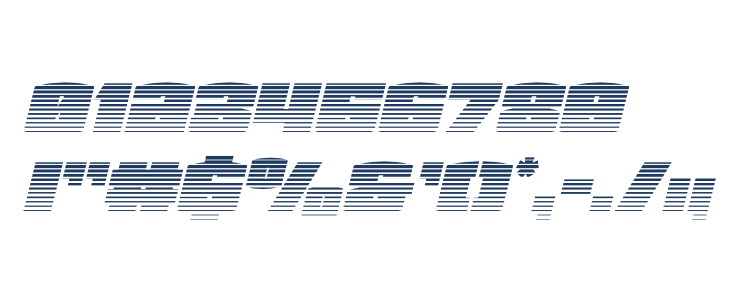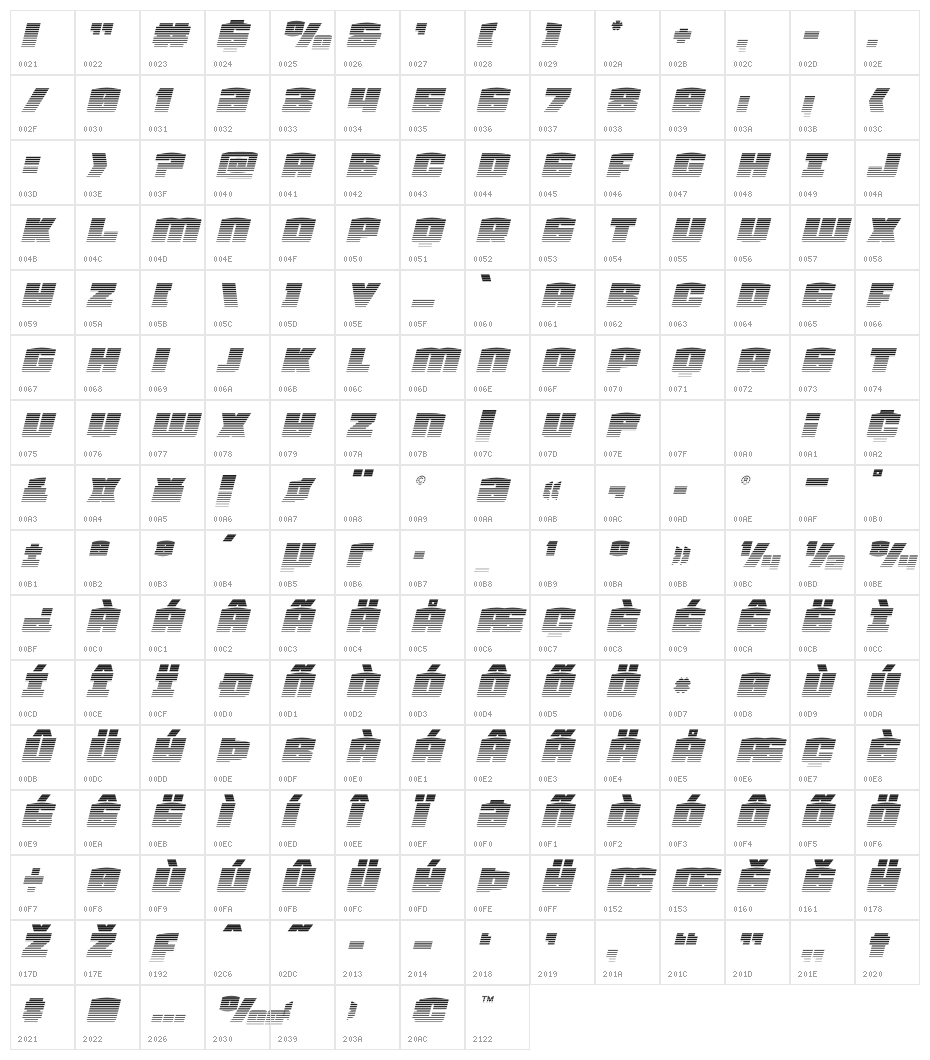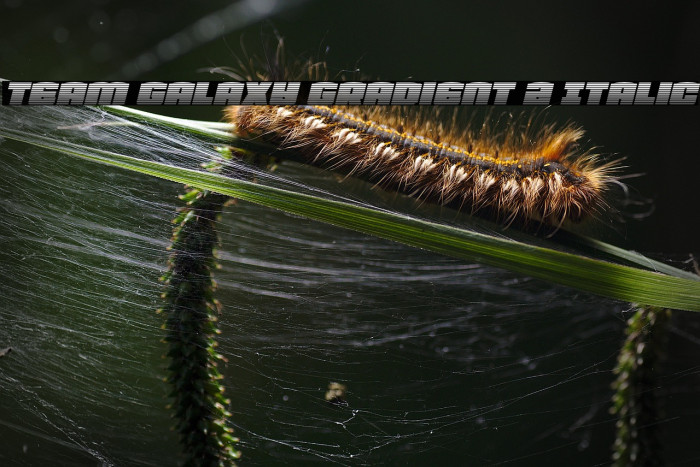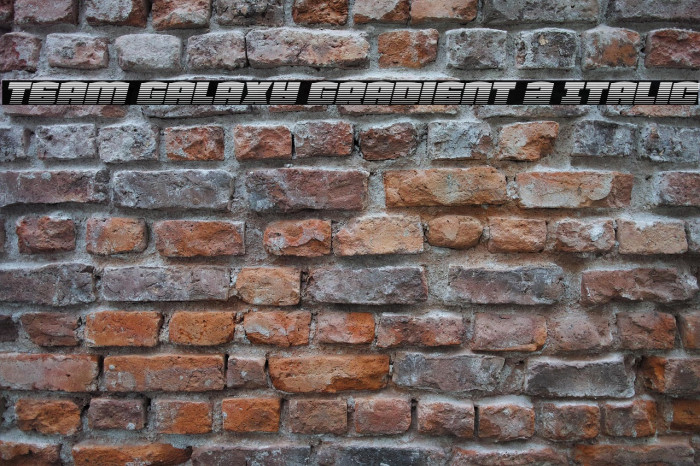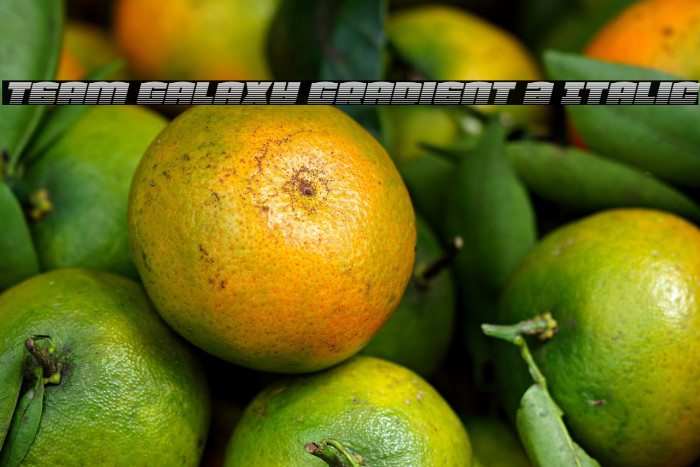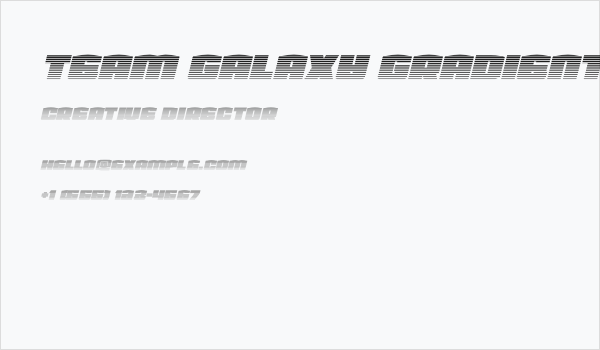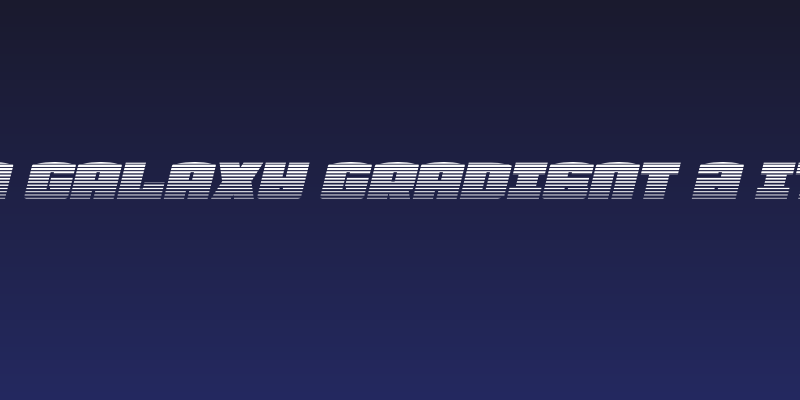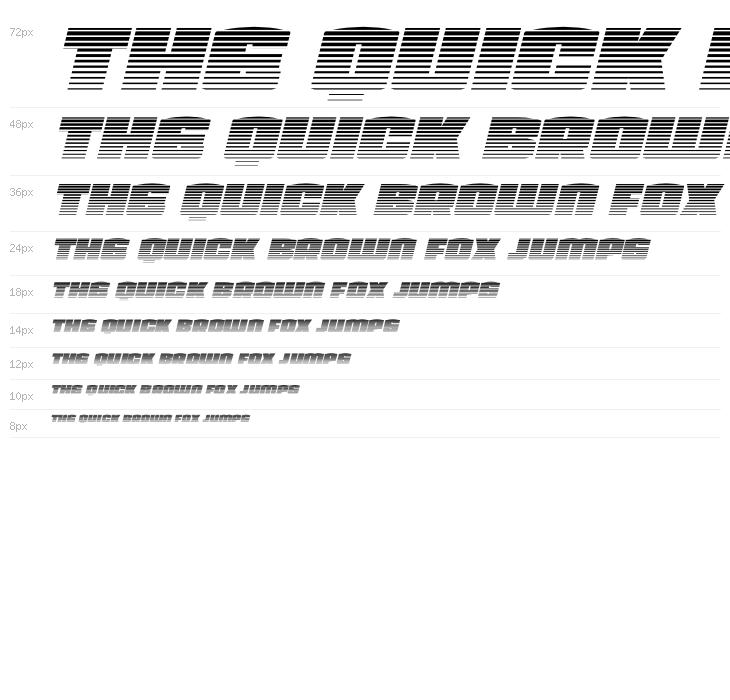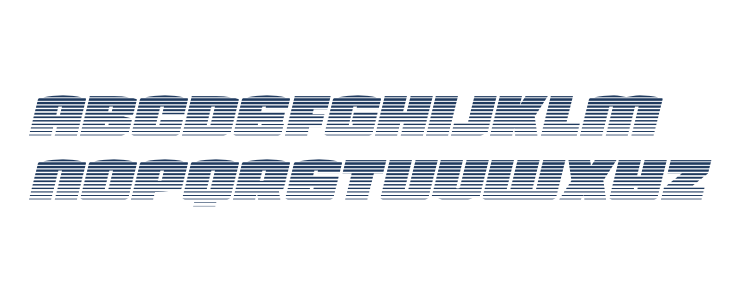
Team Galaxy Gradient 2 Italic Font
Team Galaxy Gradient 2 Italic Description
This font features a futuristic and dynamic design with a distinct italic slant. Each character is composed of horizontal lines that create a gradient effect, giving the impression of movement and speed. The bold and wide letterforms are designed to stand out, making it ideal for attention-grabbing headlines and titles. The font's unique style is both modern and edgy, suitable for projects that require a sense of innovation and forward-thinking. The consistent spacing between characters ensures readability while maintaining its striking visual impact.
| Proposed Projects | Ideal for sci-fi themed posters, tech company logos, video game titles, and modern advertising campaigns. |